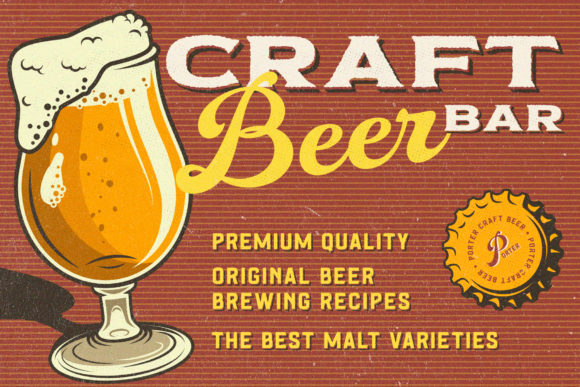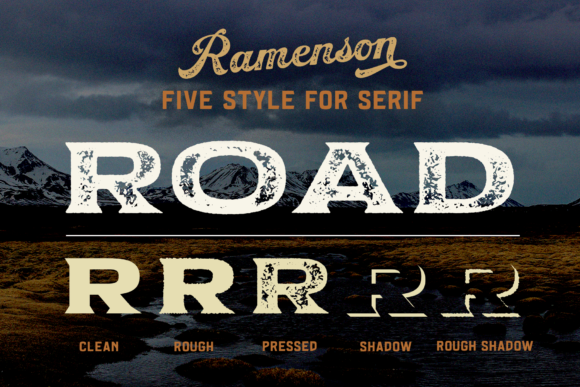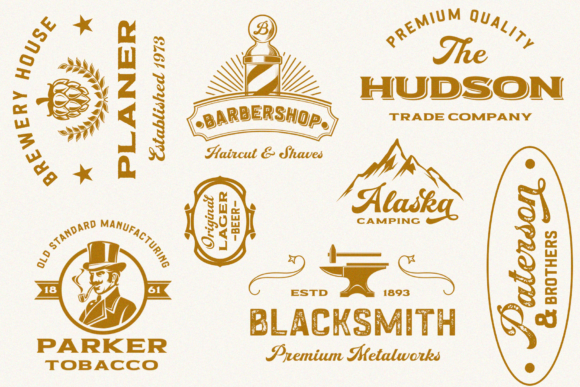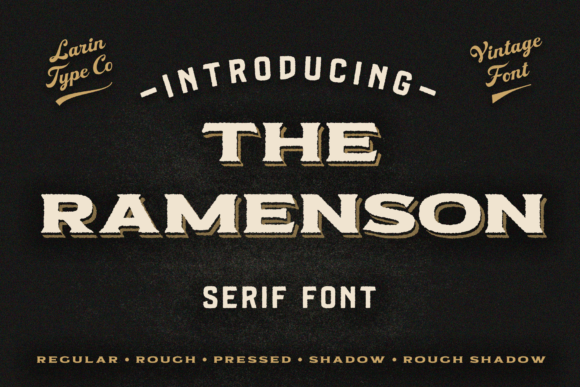
Introduction to Ramenson Font
Ramenson is a vintage and bold serif font.
It has a beautiful and balanced character, that fits well with the large design pool This font is PUA encoded which means you can access all of the glyphs and swashes with ease.